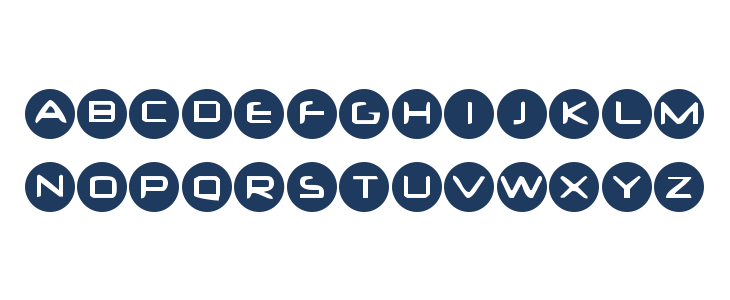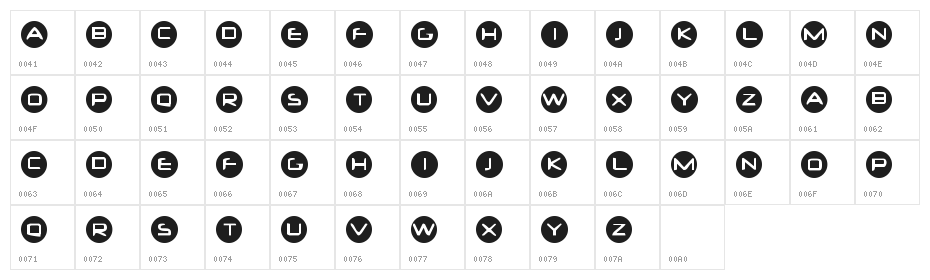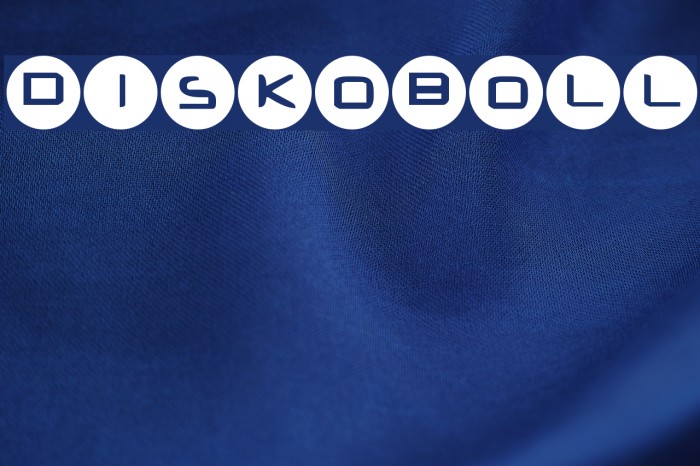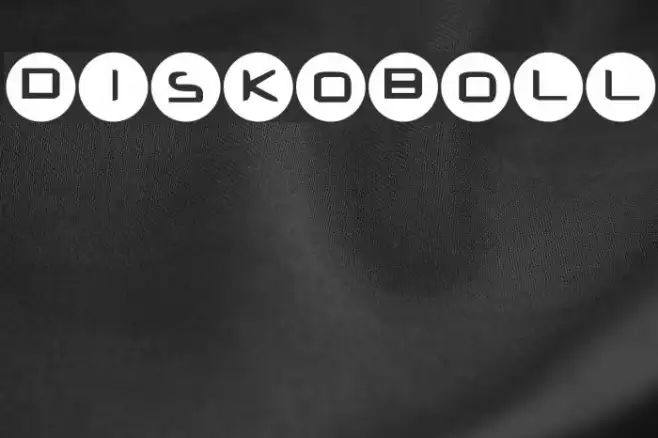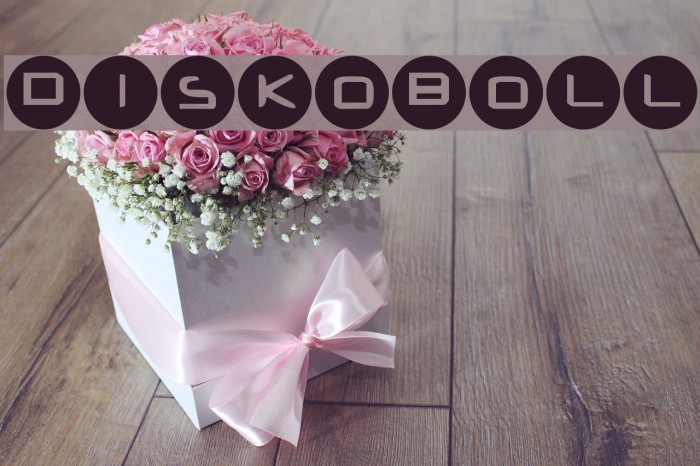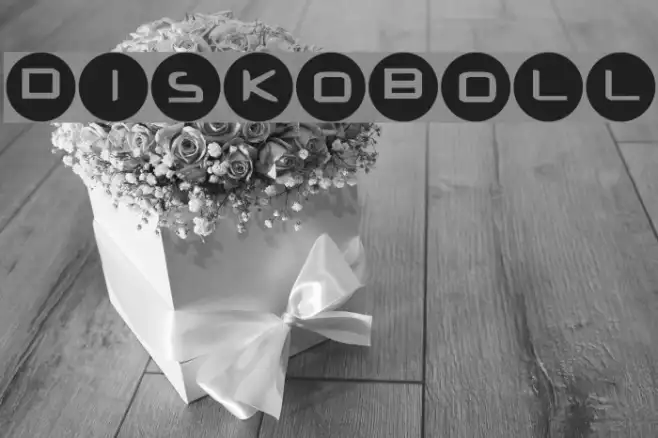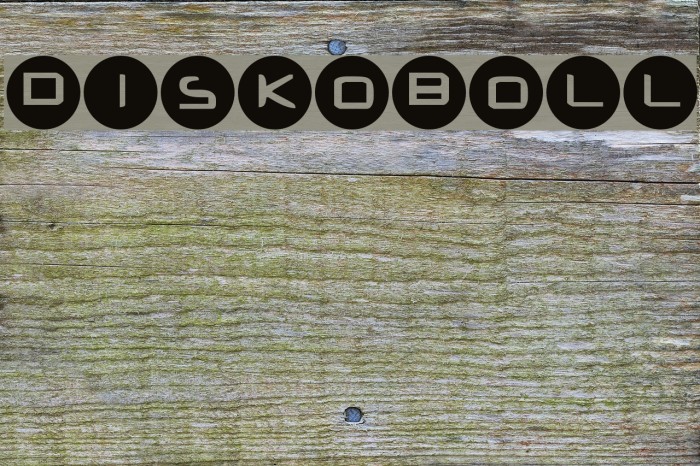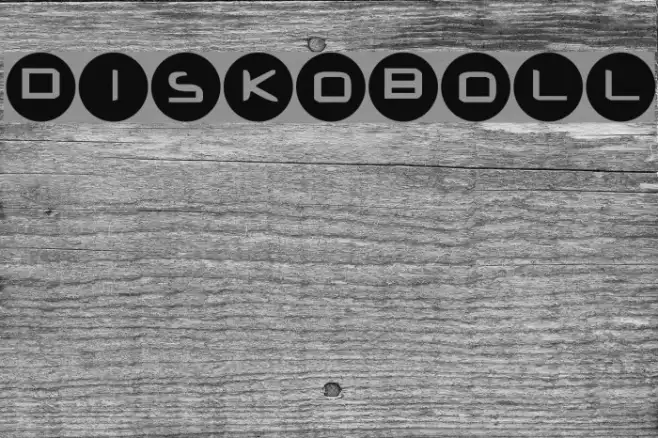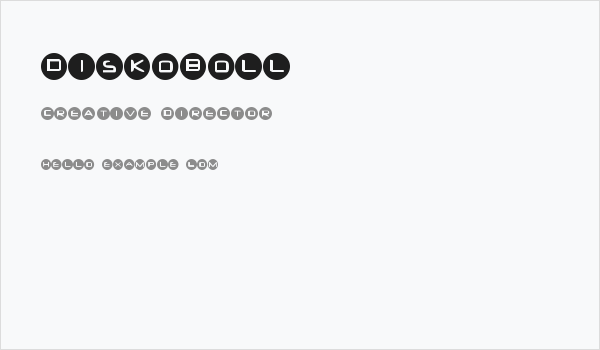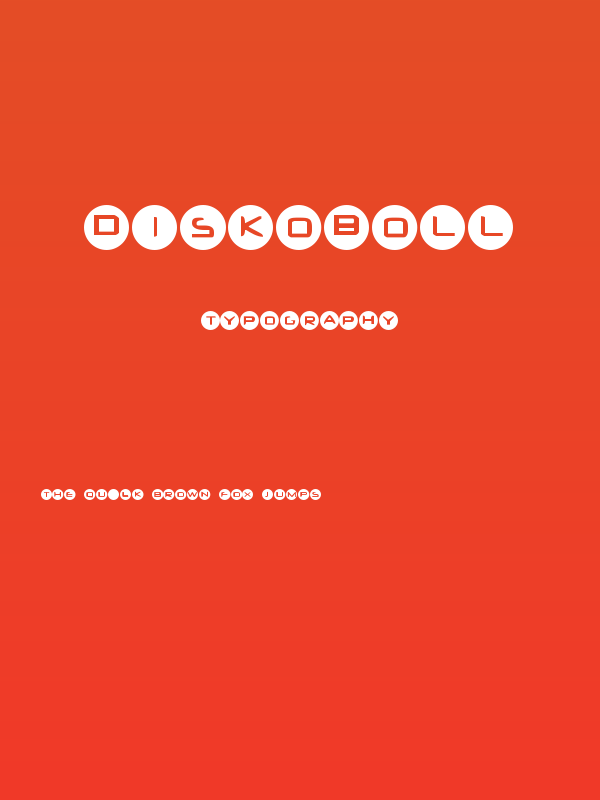
Diskoboll Font
Diskoboll Description
This font features a bold, geometric style with each character enclosed in a solid circular shape. The uppercase letters are distinct and modern, with sharp angles and clean lines that create a futuristic aesthetic. The design is consistent across the alphabet, maintaining a uniform appearance that is both striking and easy to read. The circular enclosures add a unique touch, making the font stand out for its decorative appeal. The characters are evenly spaced, providing a balanced look that enhances readability. This font is ideal for projects that require a bold statement, such as branding, posters, or digital media, where a modern and eye-catching design is desired.